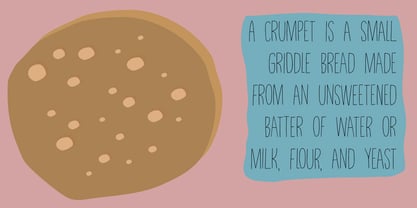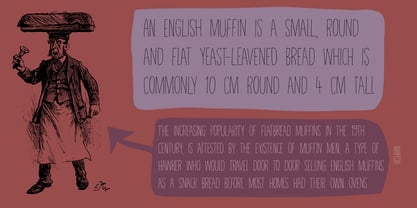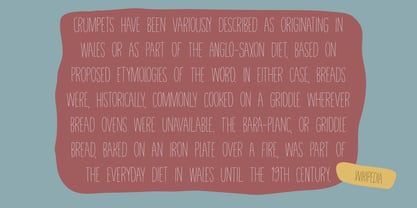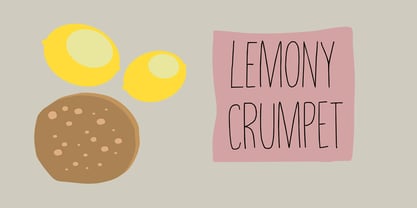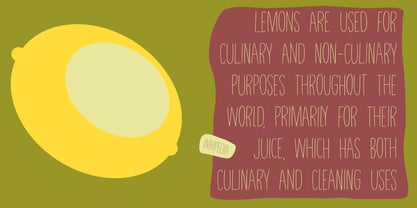
Lemony Crumpet Pro
by Hanoded
A crumpet is a small griddle bread, mostly enjoyed in the UK, North America, Australia and New Zealand.
I have never had one, but I have heard of them and I like the name - which is probably Welsh in origin.
Lemony Crumpet is a whimsical, handmade font. It is tall & thin, shaky and jumpy and I wouldn’t use it as a poster font because of its delicate properties, but it would look fantastic on book covers, product packaging and websites. Comes with extensive language support and a set of alternates for the lower case letters.
Designers: David Kerkhoff
Foundry: Hanoded